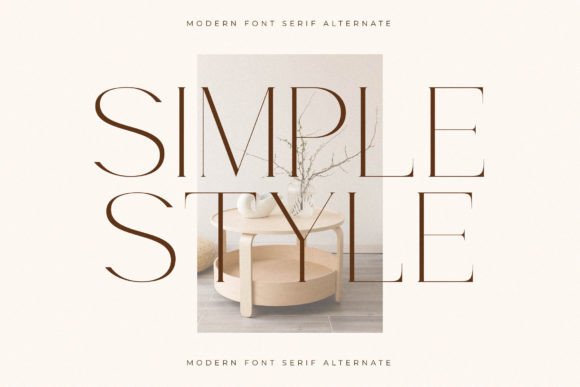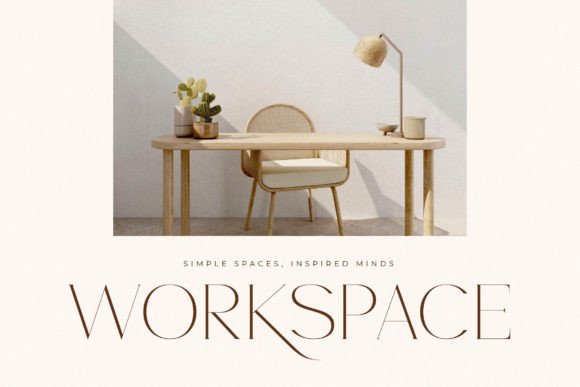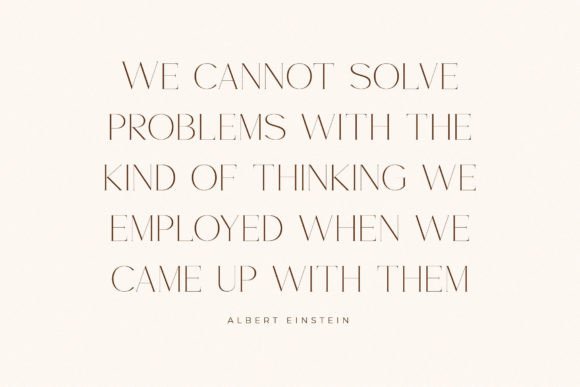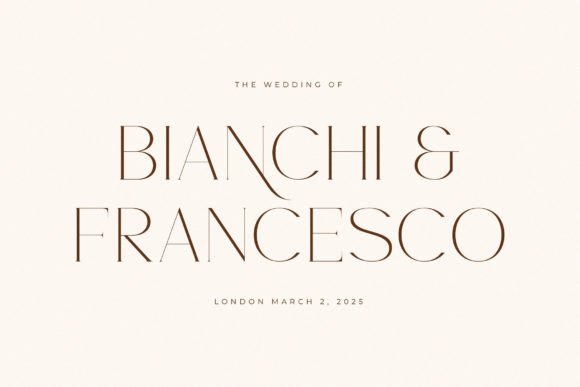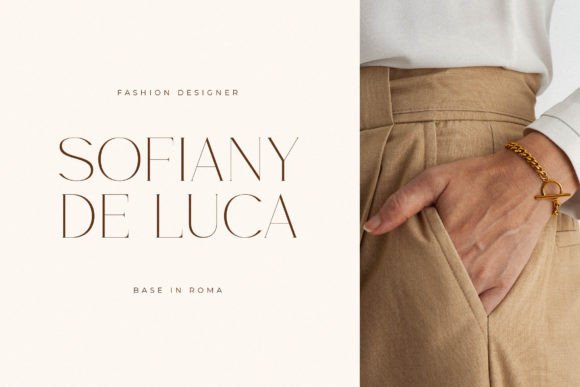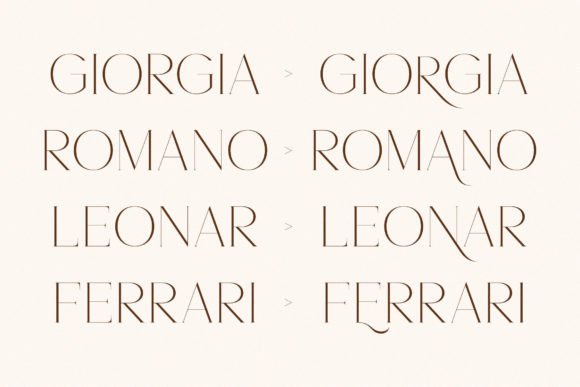
Introduction to Noracle Font
Have you ever been in the midst of a creative project, staring at a blank canvas or screen, trying to bring your vision to life? The perfect font can make all the difference. That’s why we’re excited to introduce the Noracle Font, a stunning serif typeface that exudes elegance and sophistication.
Whether you’re a seasoned designer or just starting out, the Noracle Font is an invaluable resource for any creative project. Its unique style and modern look make it perfect for luxury logo designs, book titles, magazine covers, and more. With its PUA encoding, accessing all the amazing glyphs and ligatures is a breeze, allowing you to focus on what really matters – bringing your vision to life.
Key Features of Noracle Font
- Unique, modern design that can add a touch of elegance and sophistication to any creative project
- Perfect for use in graphic design, digital art, and other creative endeavors, including logos, typography, and more
Honest Review: Noracle Font
One of the standout features of the Noracle Font is its transparent background, which makes it easy to layer over different colors and textures. This has been a game-changer for my creative project, allowing me to achieve a more cohesive look.
- High-quality design: The Noracle Font is crisp and clean, making it perfect for body text and headings.
⚠️ While the Noracle Font is high-quality, I did find that it’s not as versatile as some other fonts I’ve worked with. The style is quite specific, so it may not be suitable for all design projects.
Overall, I’m impressed with the Noracle Font. It’s a great addition to any designer’s resource collection, and I would recommend it for creative projects that require a clean, modern look.
Noracle Font
The Noracle Font is a high-quality design resource perfect for creative projects. This free download offers a unique and stylish look that can elevate your designs. With its transparent background, you can easily integrate it into any project.
Tips for Getting the Most Out of Noracle Font
To get the most out of the Noracle Font, use it in combination with other design elements, such as graphics and images. Experiment with different font sizes and styles to create a unique look. The transparent background makes it easy to customize and combine with other elements.
The Noracle Font is perfect for a variety of creative projects, including social media graphics, presentations, reports, and proposals. Its unique style and transparent background make it a versatile design resource that can be used in a range of applications.